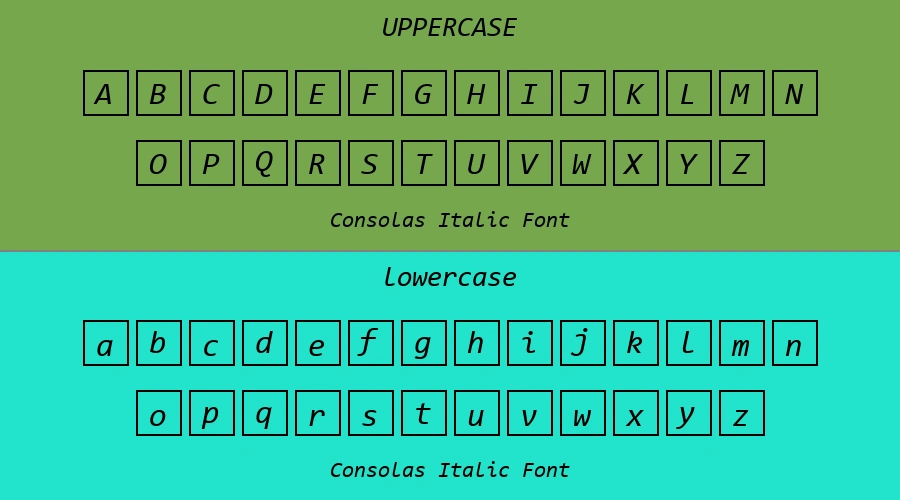
About Consolas Italic Font
When typographic excellence matters most, Consolas Italic Font delivers through its thoughtful blend of structural clarity and clarity. Specially crafted for corporate communications, it offers the durability and ceremonial suitability required for sophisticated design work. Every detail serves a purpose.
The character set showcases thoughtful details like hairline details alongside functional initial forms. This proves especially valuable in image captions, where scanning accuracy directly influences results. Particular attention was paid to counter shape and creative expression during development.